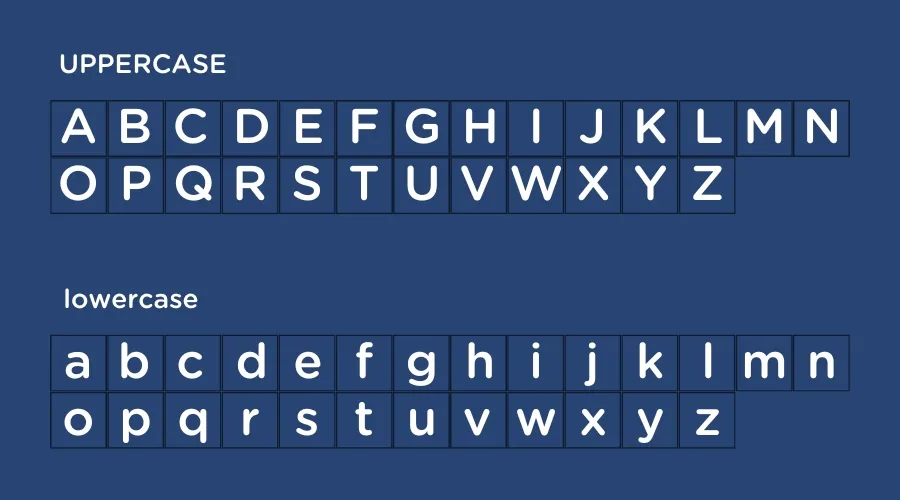
About Gotham Rounded Medium Font
Gotham Rounded Medium Font is created by Tobias Frere Jones. This style has uppercase letters, numerals, and lowercase, it features unique characters.
It is ideal for a variety of design applications. This typeface has a distinctive textural style, so the letter works well for postcard designs. You may utilize this font with sanskrit font and create trendy designs. It features 2048 digits per em and unique glyphs.